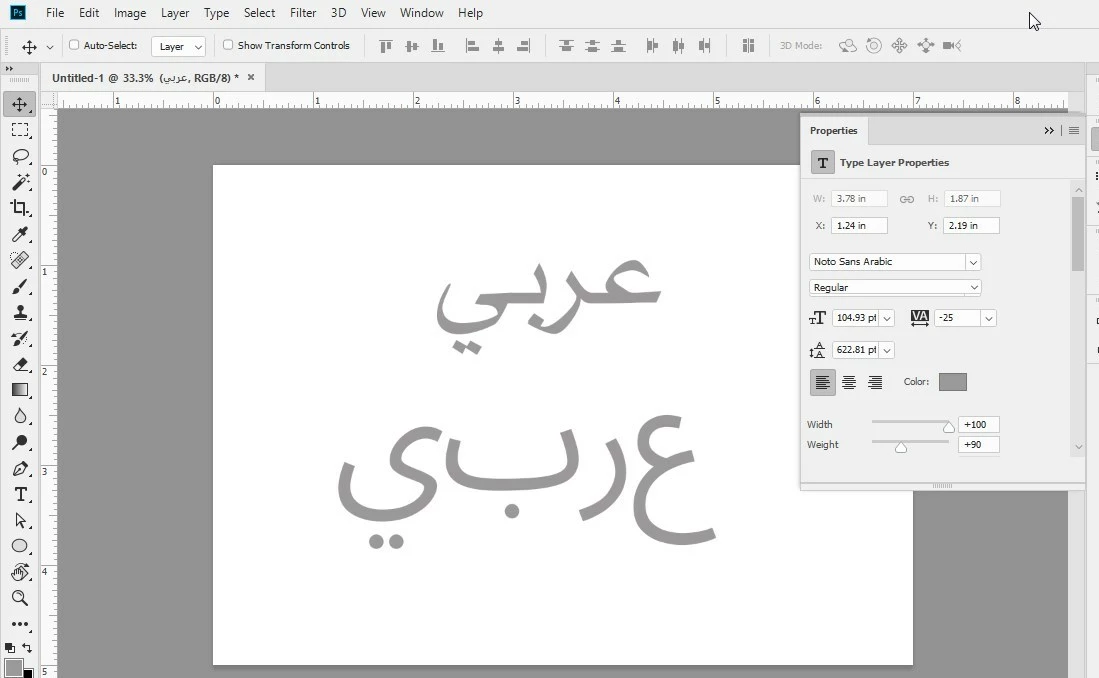
Arabic support for variable fonts
The latest adobe apps that support variable fonts doesn't support Arabic as the letters takes the isolated form without the basic Arabic features like initial, medial and final and so on
Is there any intention to support Arabic in the future ?
Here is an example of the error
the word عربي looks great in the first line because it's not a variable font
The bottom version is a variable font the letters is all isolated  ع ر ب ي and it should look like the upper version